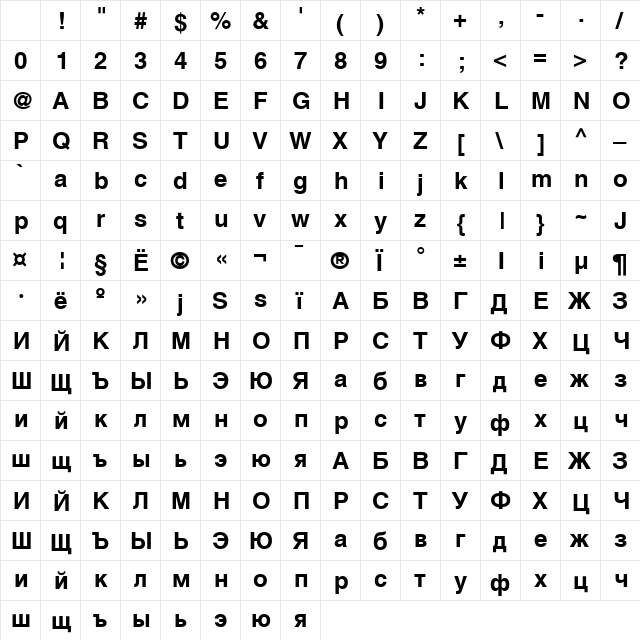
Complete AGHelveticaCyr Bold glyph index. Displaying only characters natively supported by AGHelveticaCyr Bold font.
AGHelveticaCyr is a composed and adaptable typeface that performs quietly and consistently across a wide range of design contexts. Its bold stroke weight gives it real presence on the page.